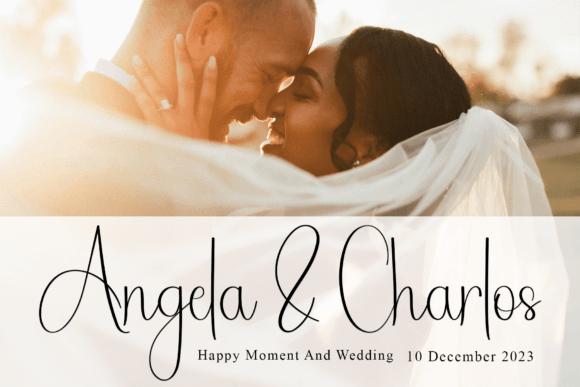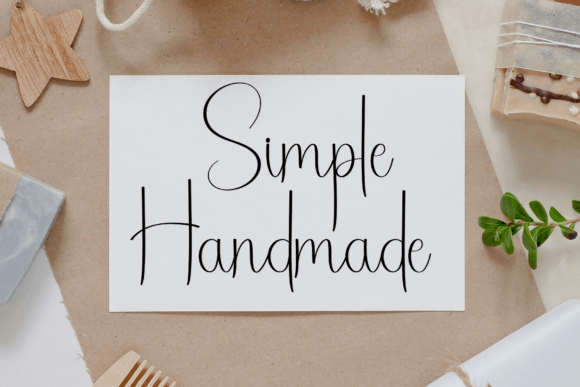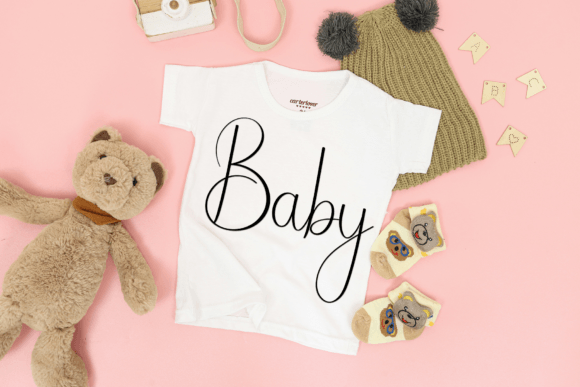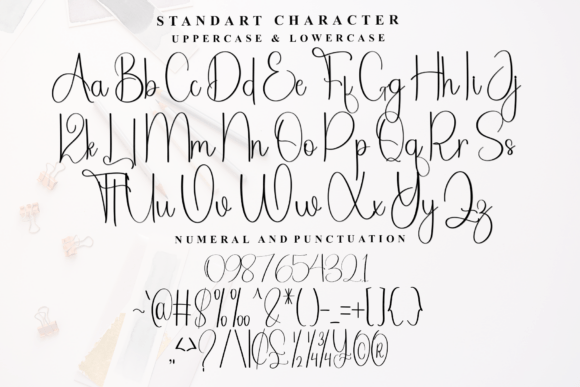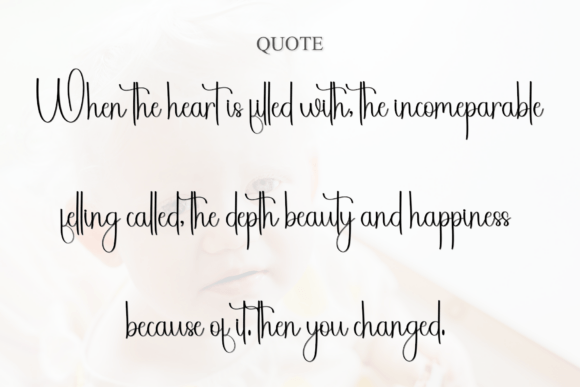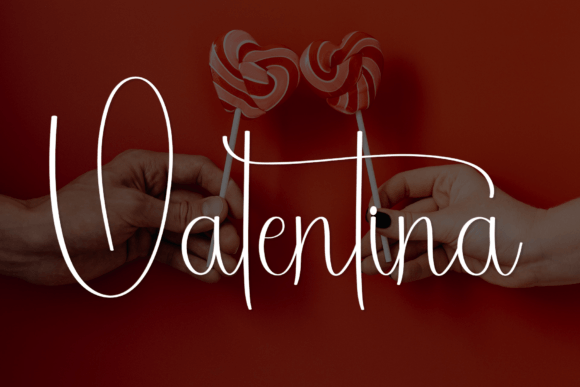
Introducing Advantage Font: Elevate Your Designs with Timeless Elegance
In the world of typography, fonts play a crucial role in conveying the tone and personality of a design. For designers and crafters seeking to add a touch of sophistication and class to their projects, Advantage Font is an exceptional choice. This trendy handwritten font boasts a contemporary atmosphere and impeccable form, drawing inspiration from timeless classic calligraphy.
The Story Behind Advantage Font
Advantage Font is a carefully crafted typeface that combines the beauty of traditional calligraphy with modern sensibilities. Its design is rooted in the principles of classic calligraphy, yet it has been refined to suit the demands of contemporary design. This font is perfect for those who appreciate the elegance of handwritten typography but require a font that is versatile and easy to read.
Key Features of Advantage Font
- Trendy and Contemporary: Advantage Font features a modern take on traditional calligraphy, making it perfect for designers who want to stay on-trend.
- Impeccable Form: Each letterform has been meticulously designed to ensure clarity, legibility, and aesthetic appeal.
- Elegant and Classy: The font’s classic inspiration lends an air of sophistication to any design, making it ideal for high-end projects.
- Versatile: Advantage Font can be used across various design applications, from branding and advertising to packaging and digital media.
Use Cases for Advantage Font
Advantage Font’s versatility makes it suitable for a wide range of design projects. Here are some use cases where this font truly shines:
- Branding and Logo Design: Create a lasting impression with a sophisticated logo that exudes elegance and refinement.
- Wedding and Event Design: Add a touch of luxury to wedding invitations, programs, and other event materials.
- Packaging Design: Elevate product packaging with a font that communicates high-quality and sophistication.
- Digital Media: Use Advantage Font in digital platforms such as social media graphics, blogs, and websites to convey a sense of class and professionalism.
Tips for Using Advantage Font Effectively
To get the most out of Advantage Font, consider the following tips:
- Pair with Neutral Backgrounds: Allow the font’s elegance to take center stage by pairing it with simple, neutral backgrounds.
- Experiment with Colors: While Advantage Font looks stunning in black, don’t be afraid to experiment with colors that complement its classic feel.
- Use for Headings and Titles: Take advantage of the font’s luxurious feel by using it for headings and titles, and pair it with a simpler font for body text.
Advantage Font is a beautiful, trendy handwritten font that brings a touch of timeless elegance to any design project. Its contemporary atmosphere, impeccable form, and classic inspiration make it an excellent choice for designers and crafters seeking to add sophistication and class to their work. Whether you’re creating branding materials, event designs, packaging, or digital media, Advantage Font is sure to elevate your designs to new heights.